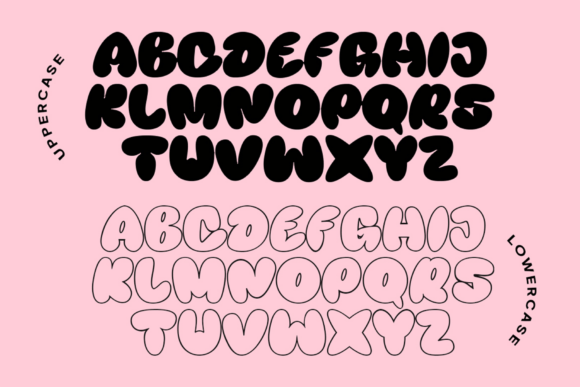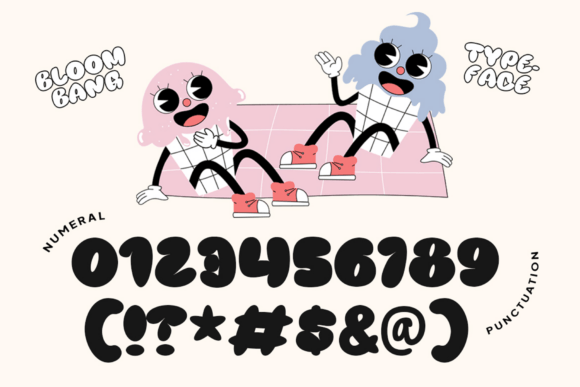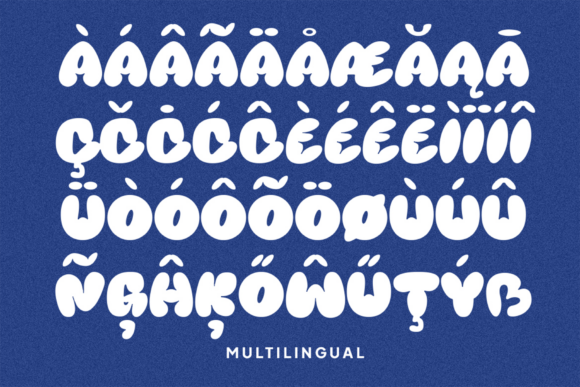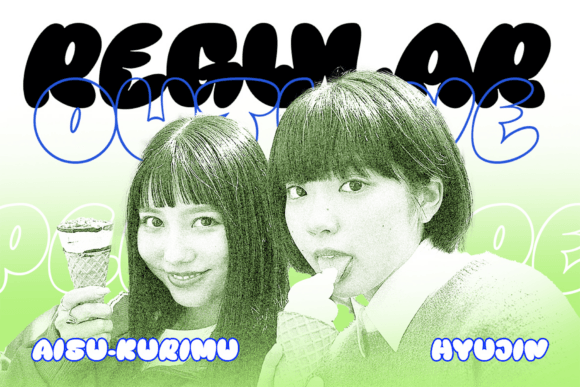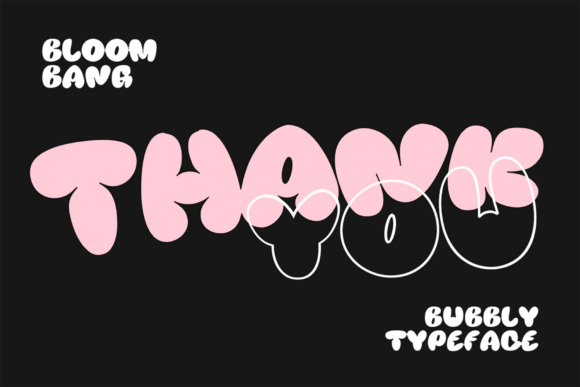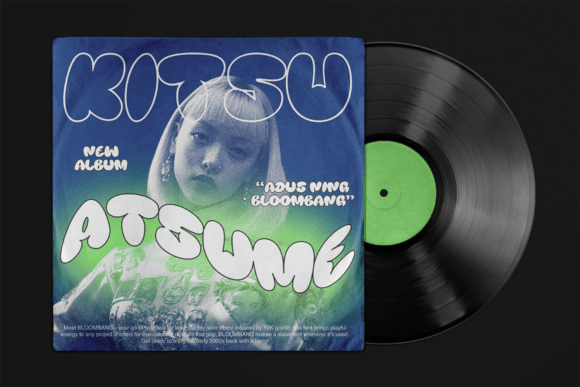
Introducing BLOOMBANG: The Ultimate Y2K-Inspired Display Typeface
Are you ready to take a trip down memory lane and relive the electrifying Y2K era? Look no further than BLOOMBANG, a bold and bubbly display typeface that’s about to revolutionize your designs. This vibrant and energetic font is the perfect blend of graffiti culture and retro-futurism, making it a must-have for designers and crafters looking to add a nostalgic yet fresh twist to their work.
The Inspiration Behind BLOOMBANG
BLOOMBANG is more than just a font – it’s a time capsule of the early 2000s, a era characterized by its love of bold graphics, bright colors, and playful typography. Inspired by the vibrant energy of graffiti culture, BLOOMBANG brings a splash of retro-futurism to the table, with oversized curves and playful forms that are sure to make a loud statement. Whether you’re crafting eye-popping posters, edgy apparel, or dynamic logos, BLOOMBANG is the perfect font to help you capture that unmistakable early 2000s vibe with a modern graffiti flair.
What Makes BLOOMBANG So Special?
So, what sets BLOOMBANG apart from other display typefaces on the market? For starters, its bold and bubbly personality is unmatched. The font’s oversized curves and playful forms give it a dynamic energy that’s impossible to ignore. Additionally, BLOOMBANG’s unique blend of graffiti culture and retro-futurism makes it a versatile font that can be used in a wide range of design applications, from posters and flyers to apparel and accessories.
BLOOMBANG is a font that’s been designed with designers and crafters in mind. Whether you’re a professional graphic designer or a DIY enthusiast, this font is perfect for anyone looking to add a touch of personality and whimsy to their work. With BLOOMBANG, you can create eye-popping posters, edgy apparel, and dynamic logos that are sure to turn heads. The font’s bold and playful personality makes it perfect for use in a wide range of design applications, including:
- Apparel and accessories
- Web design
How to Use BLOOMBANG in Your Designs
- Use BLOOMBANG as a statement piece: Because of its bold and playful personality, BLOOMBANG is perfect for use as a statement piece in your designs. Try using it as a headline or title font to grab attention and draw the eye.
- Experiment with color: BLOOMBANG looks great in a wide range of colors, so don’t be afraid to experiment and find the perfect hue to match your brand or design.
- Mix and match: BLOOMBANG can be paired with a wide range of other fonts and design elements to create a unique and eye-catching look. Try mixing and matching it with other fonts, textures, and graphics to create a design that’s truly one-of-a-kind.
In conclusion, BLOOMBANG is a bold and bubbly display typeface that’s perfect for designers and crafters looking to add a touch of personality and whimsy to their work. With its unique blend of graffiti culture and retro-futurism, BLOOMBANG is a versatile font that can be used in a wide range of design applications. Whether you’re crafting eye-popping posters, edgy apparel, or dynamic logos, BLOOMBANG is the perfect font to help you capture that unmistakable early 2000s vibe with a modern graffiti flair. So why wait? Download BLOOMBANG today and let your creativity explode!